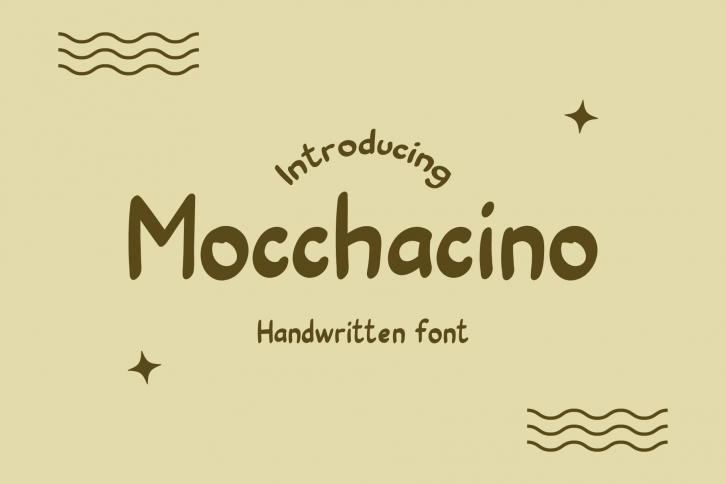
Mocchacino is a fun and playful handwritten font. Contemporary and fresh, it is perfect for any design you wish to create. Add it to your creative projects and make them outstanding!